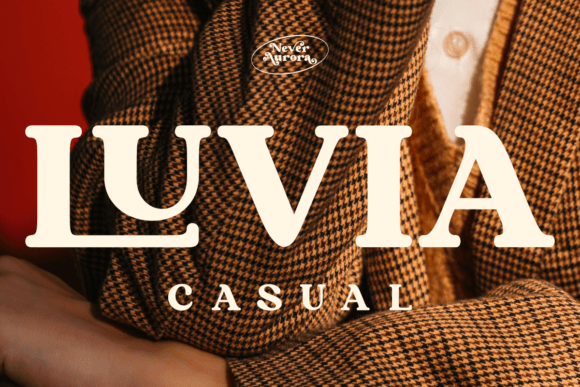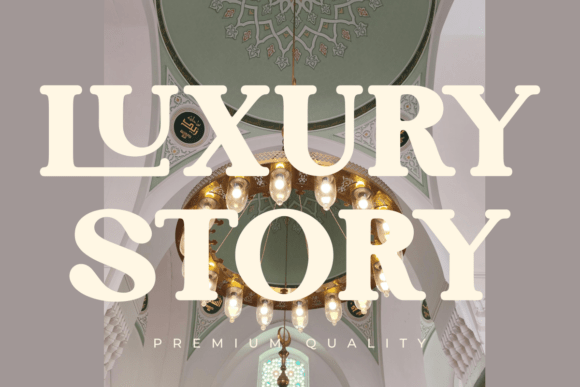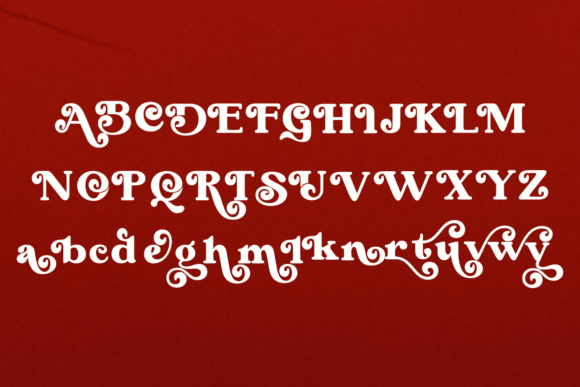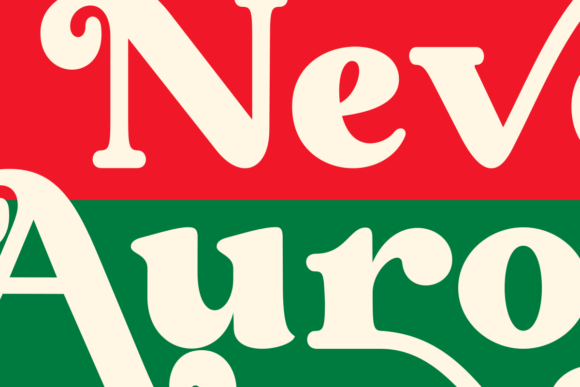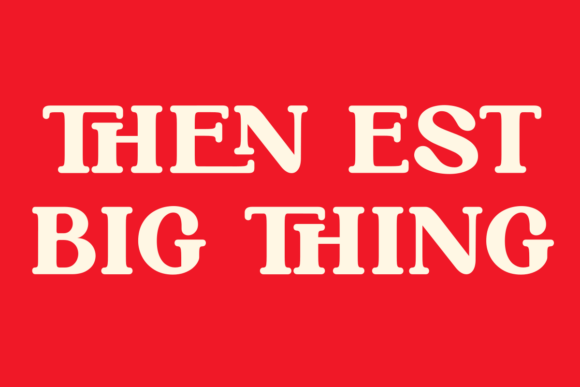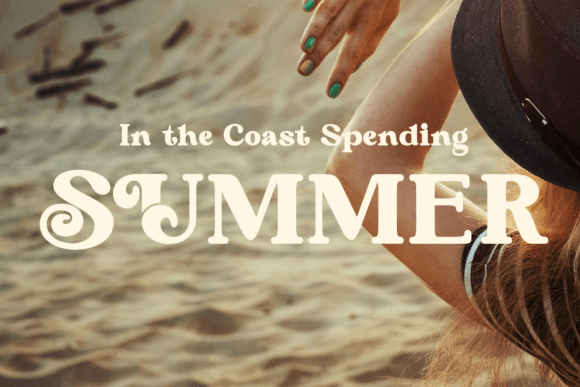
Introduction to Neveraurora Regular Font Font
Fonts play a crucial role in design, and the Neveraurora Regular Font font is a typeface that brings both character and versatility to any project. Whether you’re working on a branding project, a website, or a print design, the Neveraurora Regular Font font offers a unique style that can elevate your work.
Never Aurora typeface is a bold serif font that radiates both strength and elegance.
With its strong contrast, sharp details, and balanced proportions, it is designed to deliver a dramatic and distinctive presence Perfect for headlines, branding, editorials, or any design that seeks to convey a bold yet refined character.
The Neveraurora Regular Font font is more than just a typeface – it’s a design tool that helps you communicate your message with style and clarity. Its unique character set and versatile design make it suitable for a wide range of applications, from elegant invitations to bold headlines.
With its carefully crafted letterforms and balanced proportions, the Neveraurora Regular Font font ensures readability and visual appeal across all mediums.
The Neveraurora Regular Font font stands out with its unique design, exceptional readability, and versatility across various design applications.